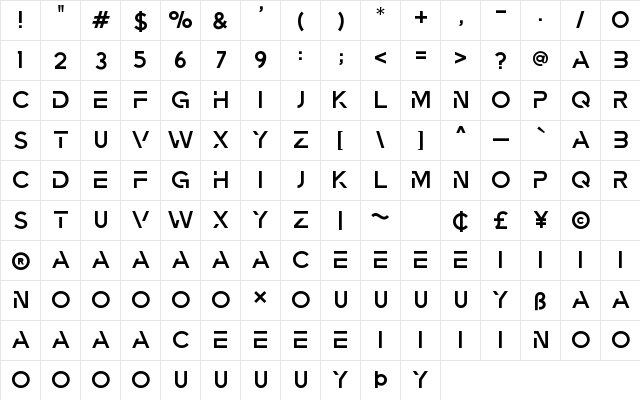
Zeniq Nano Regular
| Foundry | Hans Co. |
| Designer | Burhan Afif |
Design Context for Zeniq Nano Typeface
Zeniq Nano is a composed and adaptable typeface that performs quietly and consistently across a wide range of design contexts.